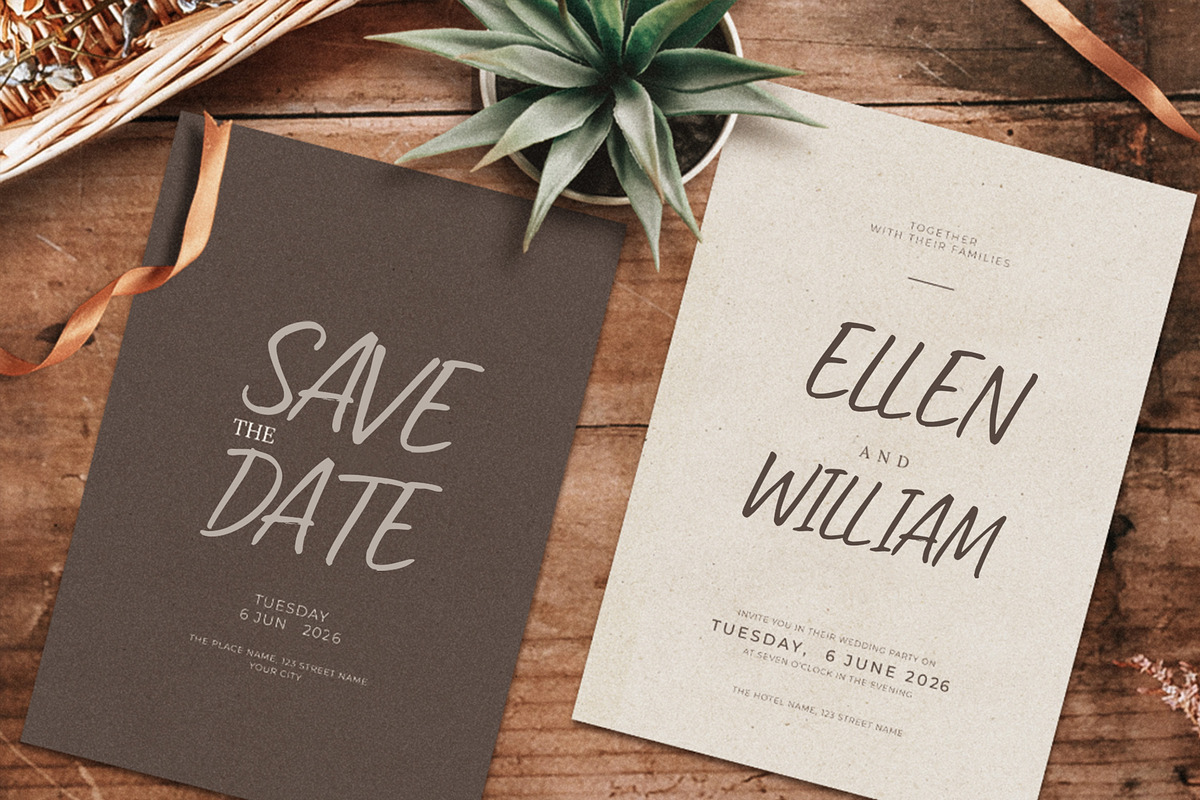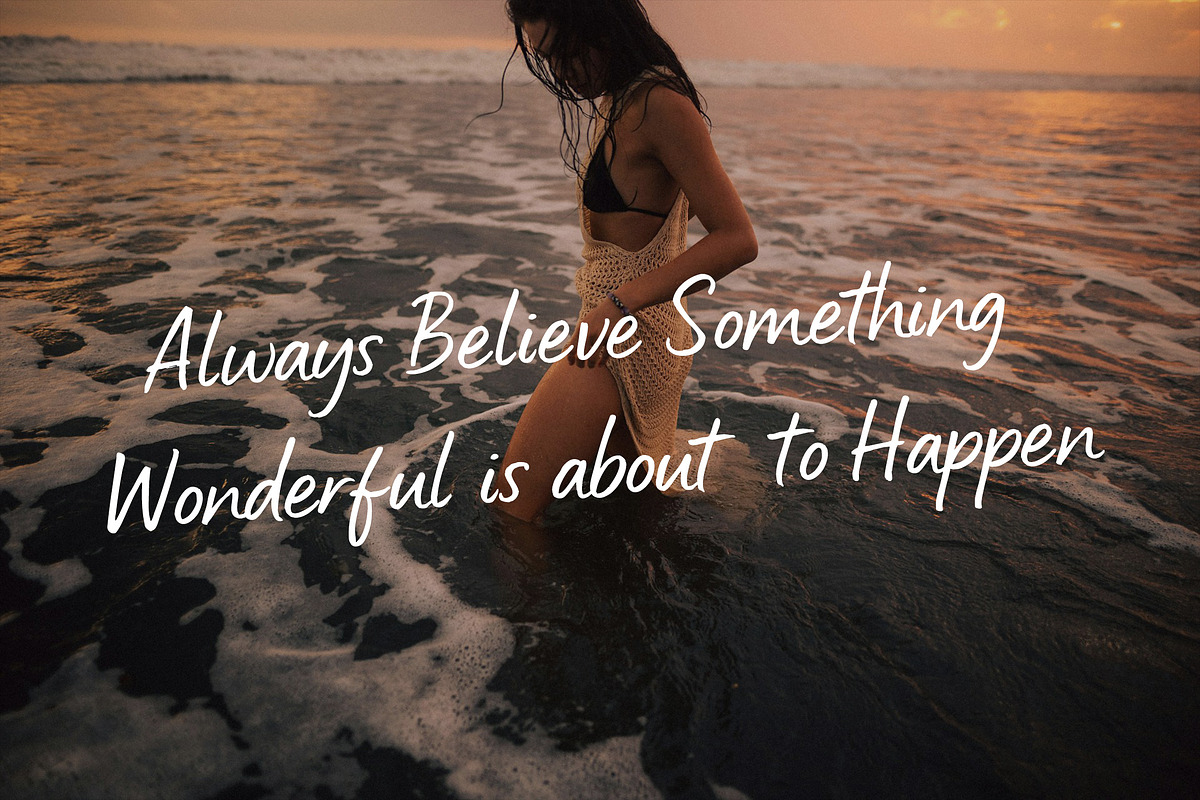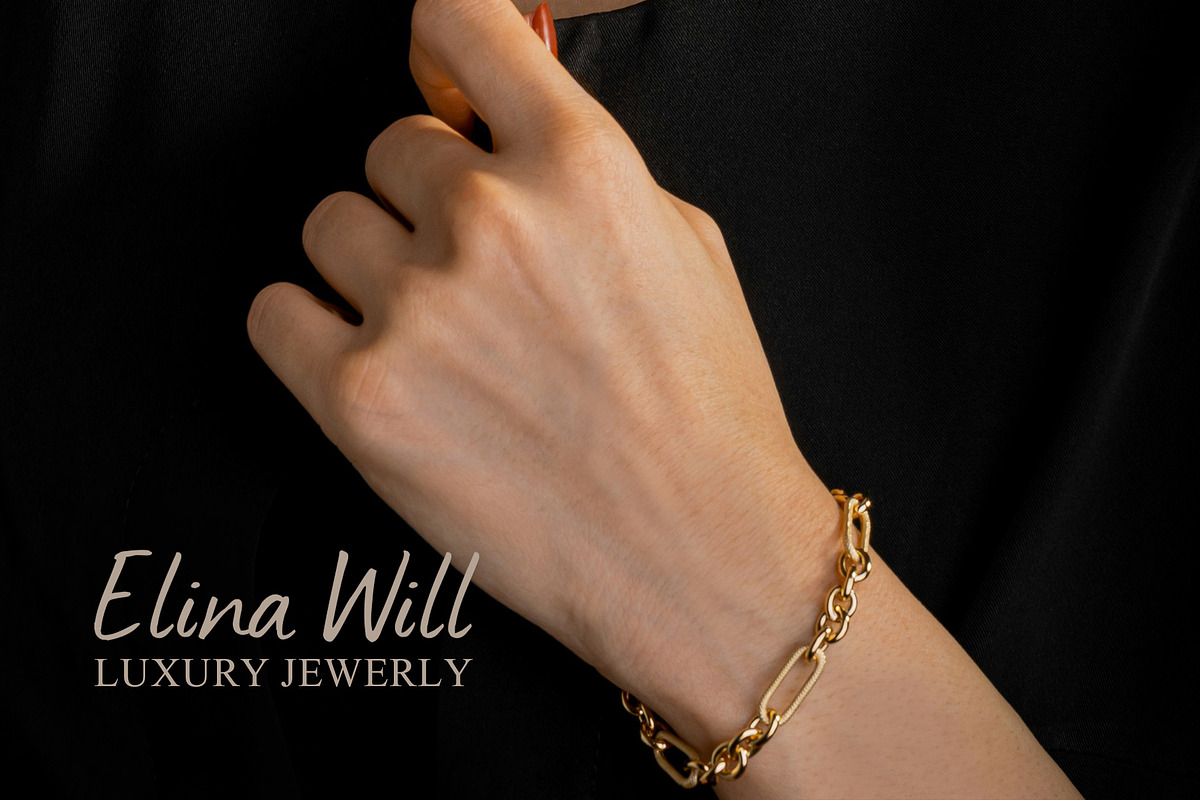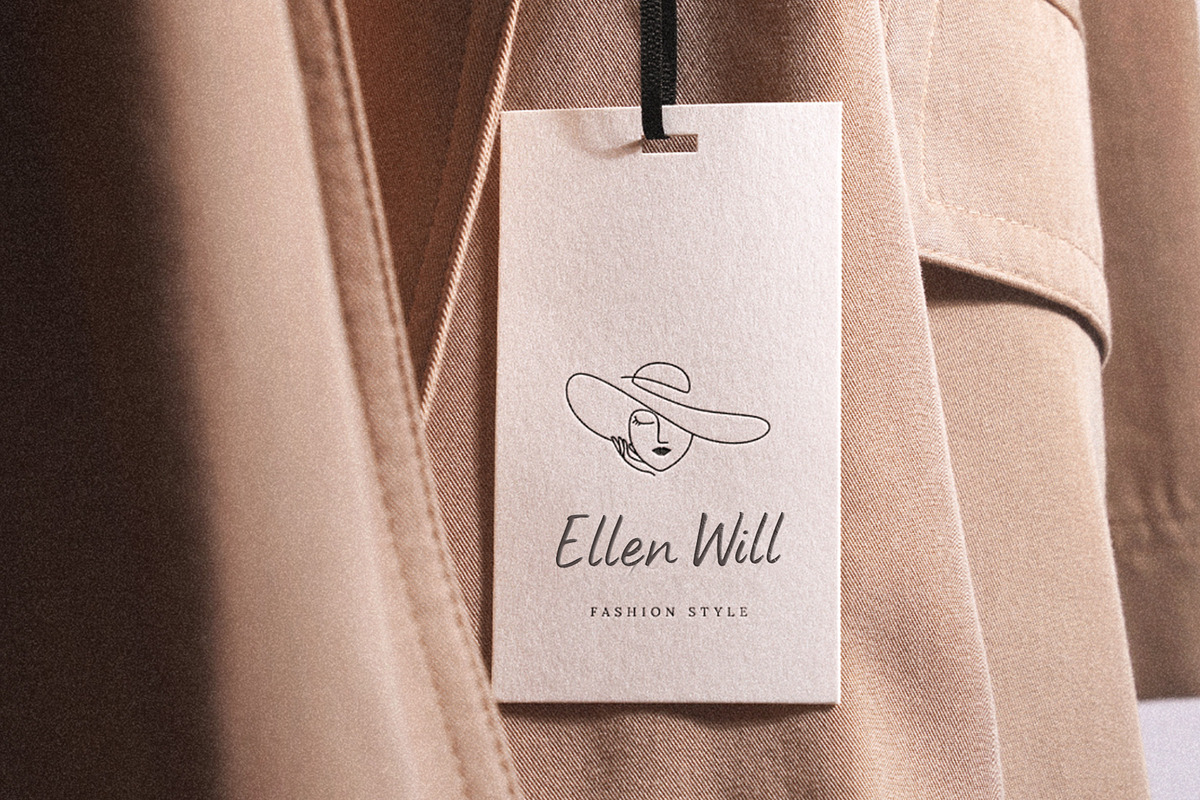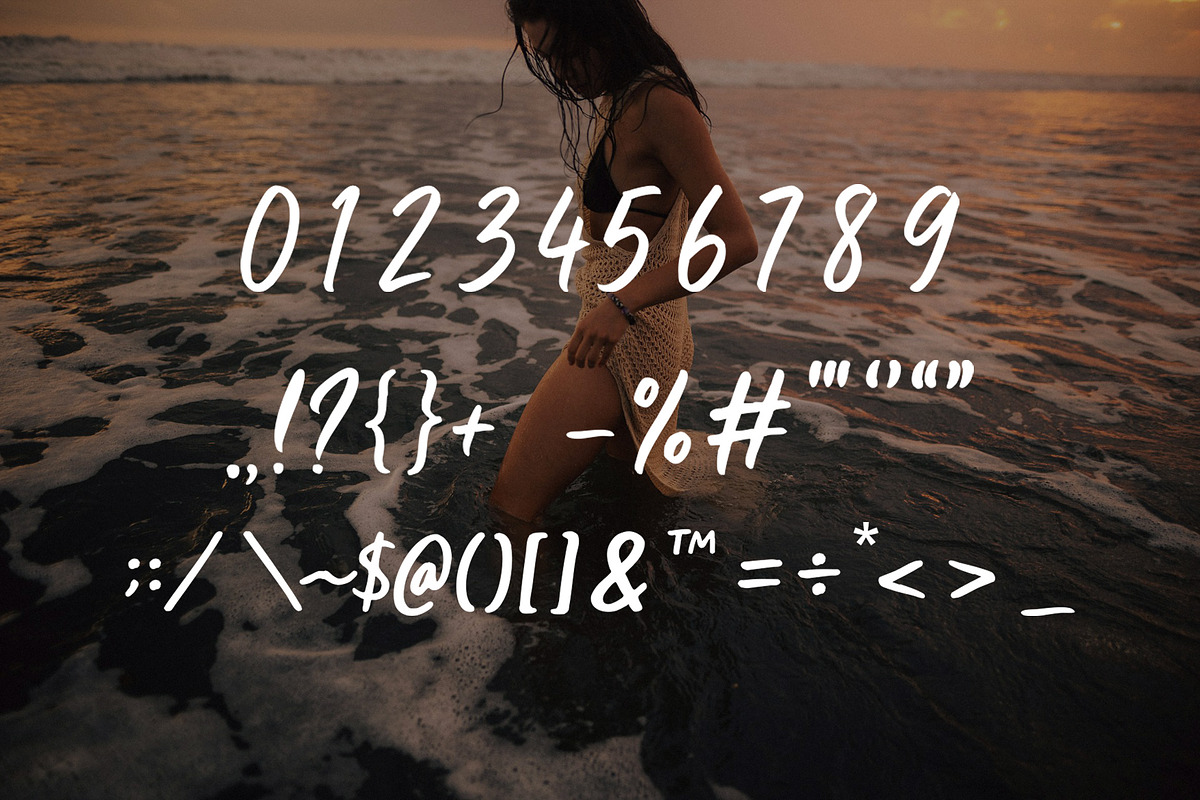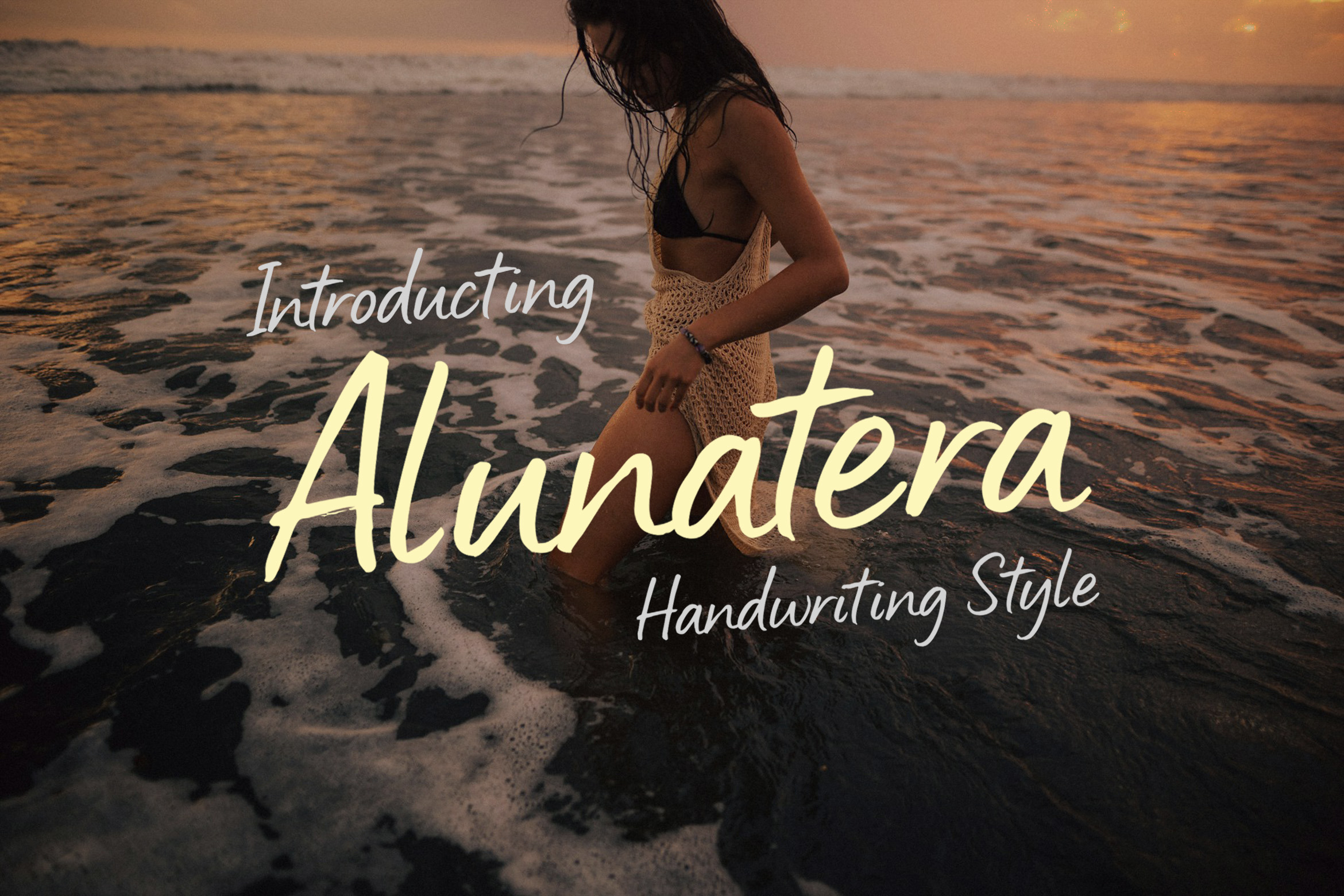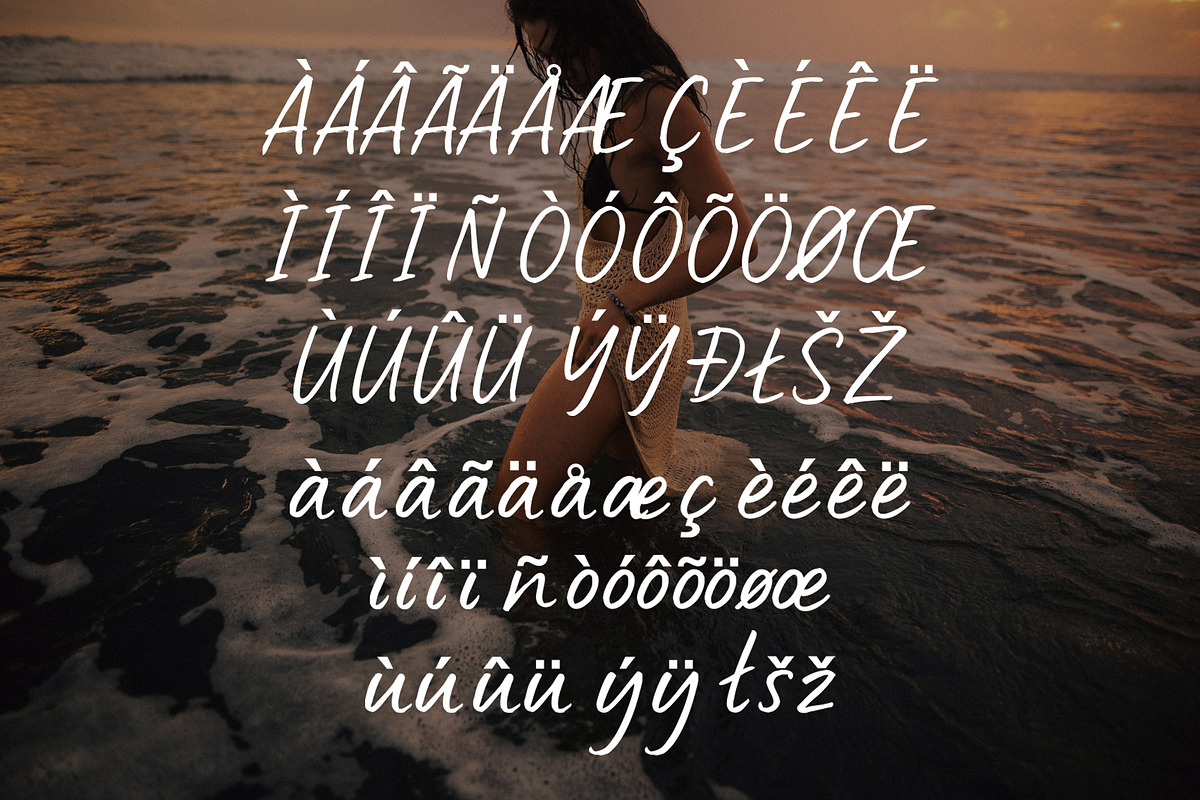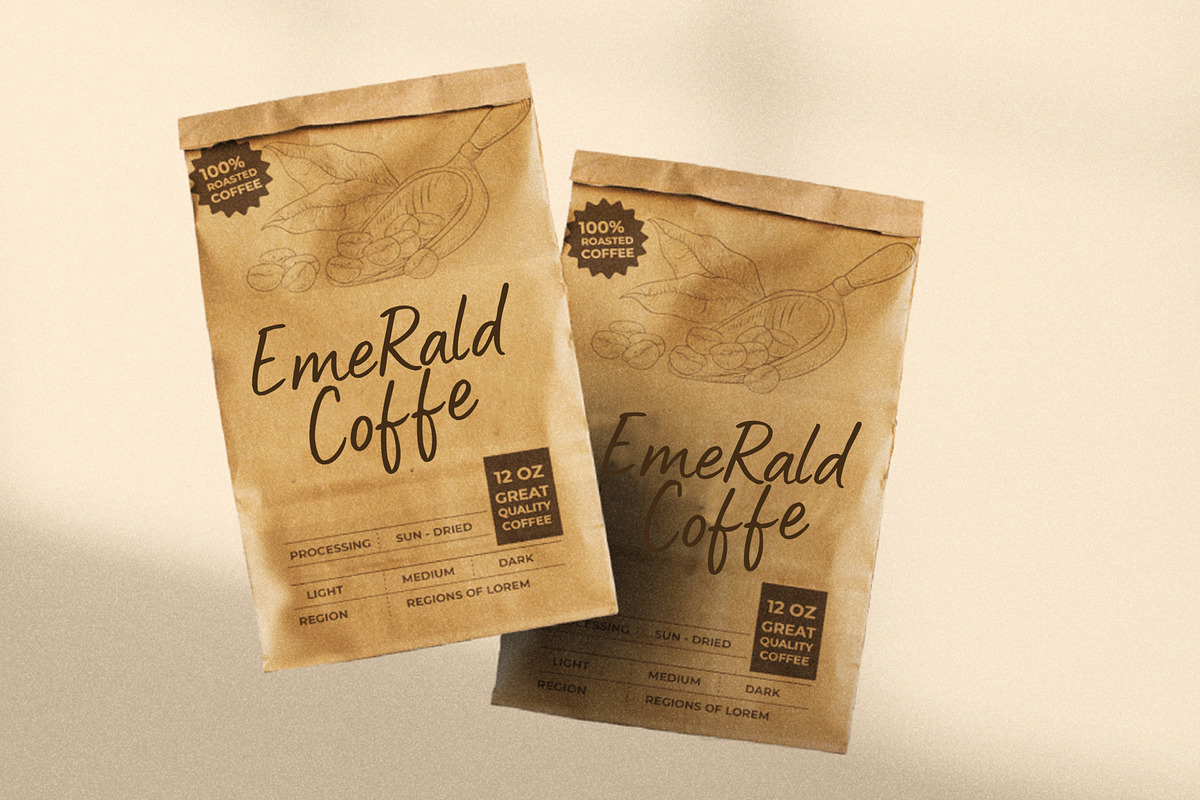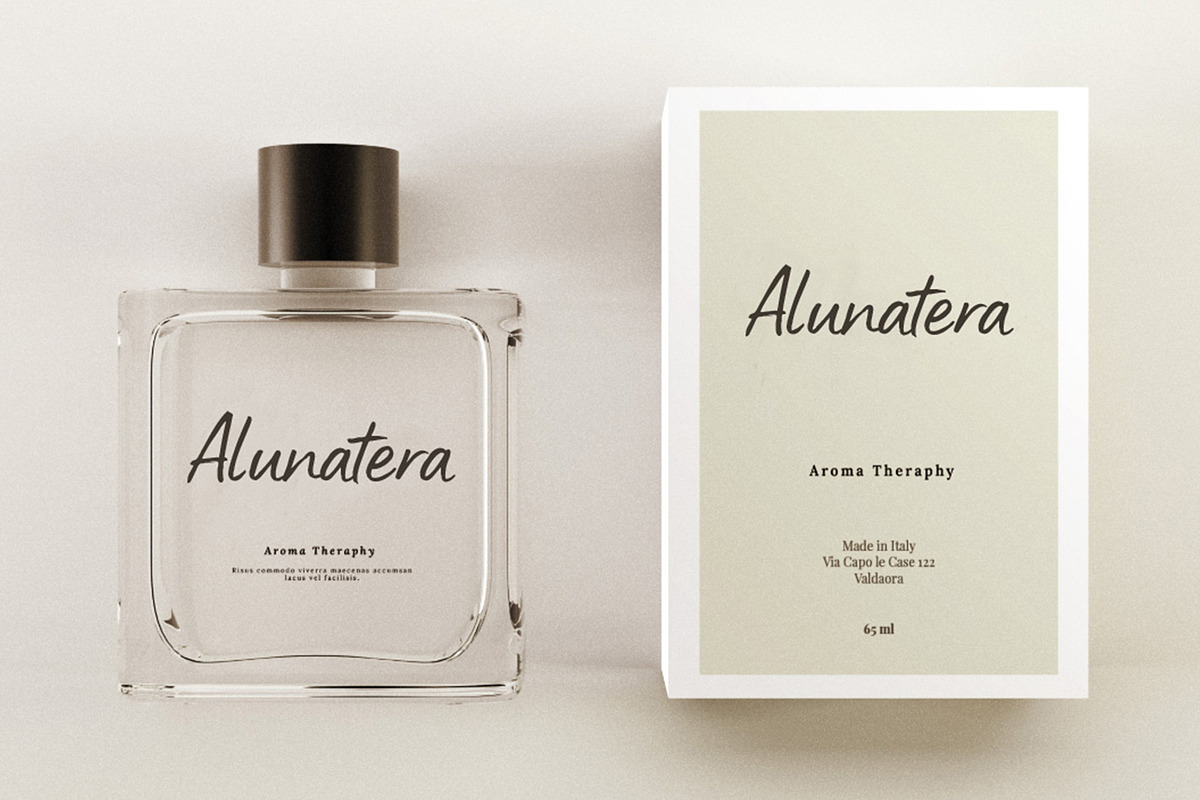
Alunatera handwriting Font
Lunatera is a clean and elegant handwritten font that captures the beauty of natural handwriting with a minimalist touch. Its smooth strokes and casual flow make it perfect for branding, social media, wedding invitations, and quote designs. Whether you're creating stylish logos or heartfelt stationery, Lunatera adds a personal and modern charm to every project.
- 223 Glyps included Uppercase, Lowercase, Numeral, Punctuation, Multilingual international Language.